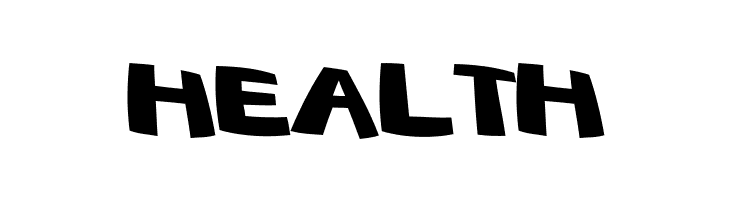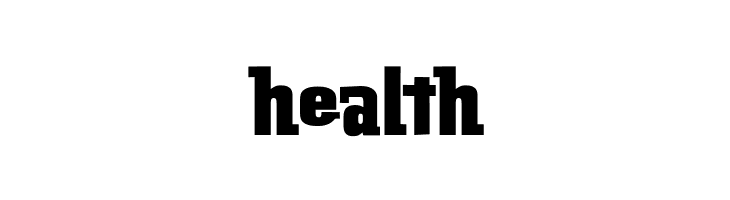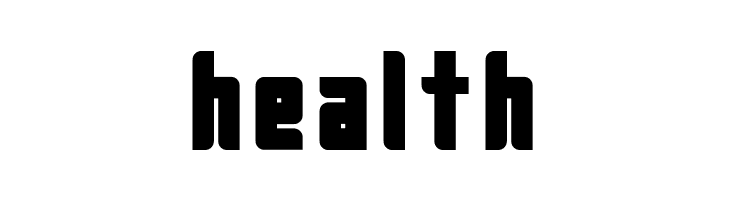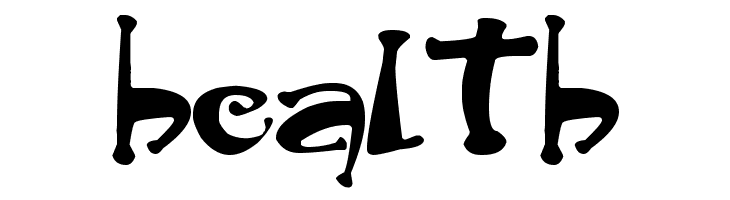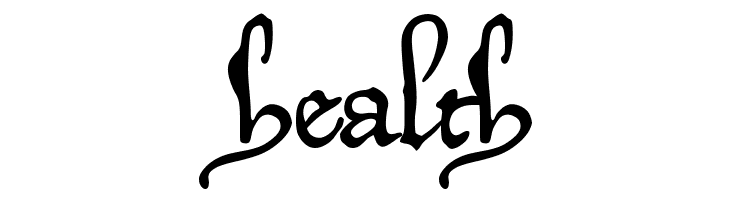
A fragmented and artistic font with a bold, dynamic style.
A bold, condensed serif font with high contrast and sharp serifs.
A bold, outlined font with a modern and playful style.
An elegant script font with thin, flowing strokes and intricate loops.
A bold, handwritten-style font with a playful and expressive character.
A playful, hollow font with bold outlines and a cartoonish, hand-drawn style.
A whimsical, eerie font with sharp strokes and playful curls.
A whimsical and decorative font with imaginative, storybook-like characters.
A bold, hand-painted style font with thick, textured strokes.
A bold, rustic font with a handcrafted, woodcut appearance.
A bold, angular font with a hand-crafted, artistic style.
A bold, modern sans-serif font with a clean and slightly condensed style.
A modern, geometric font with a futuristic and bold design.
A modern, geometric font with a futuristic and sleek design.
An artistic, leaf-inspired decorative font with fluid, organic strokes.
A diverse set of ornamental and decorative dingbats.
A bold, decorative set of ornamental and symbolic glyphs.
A vintage typewriter-style font with a distressed, monospaced appearance.
A vintage typewriter-style font with a classic, worn look.
A whimsical, hand-drawn font with curly embellishments and dynamic strokes.
A whimsical, shadowed font with curly serifs and playful design.
A bold, textured font with a playful, hand-drawn style.
An artistic, elongated font with narrow letterforms and high contrast.
A playful, hand-drawn font with a casual, whimsical style.
A bold, distressed font with a grungy, textured appearance.